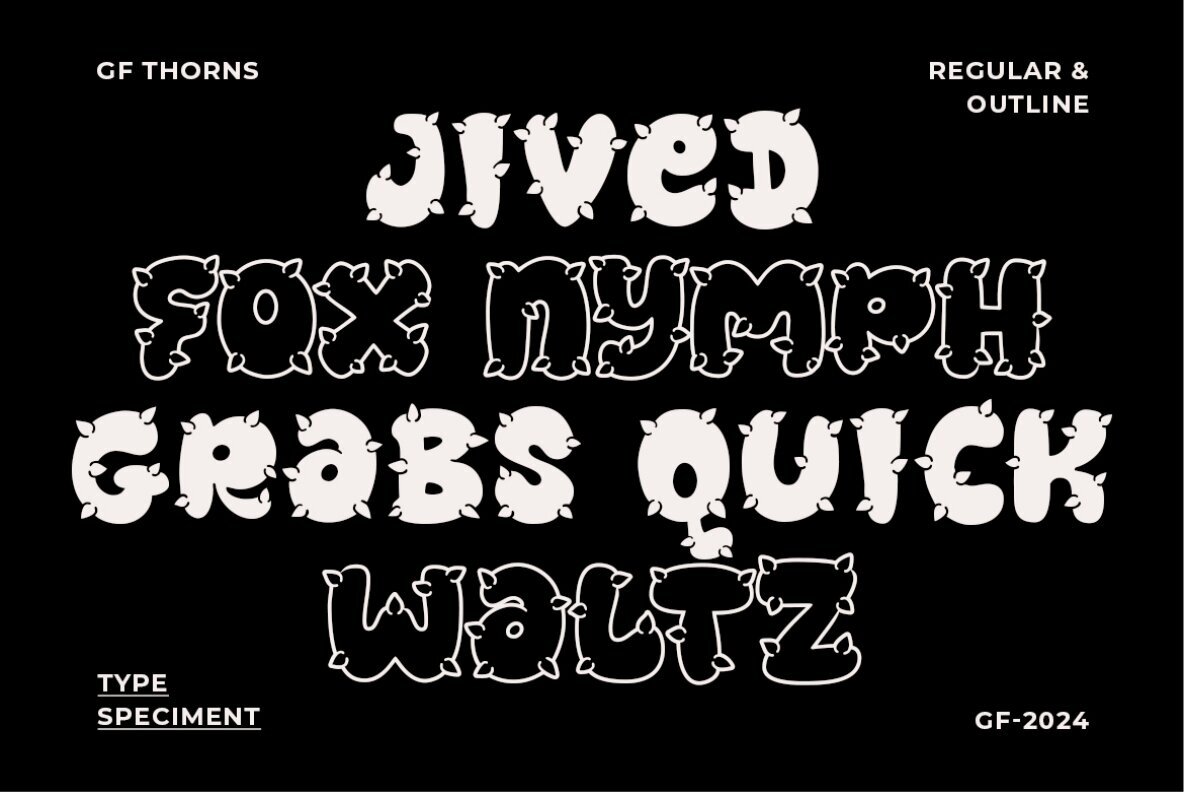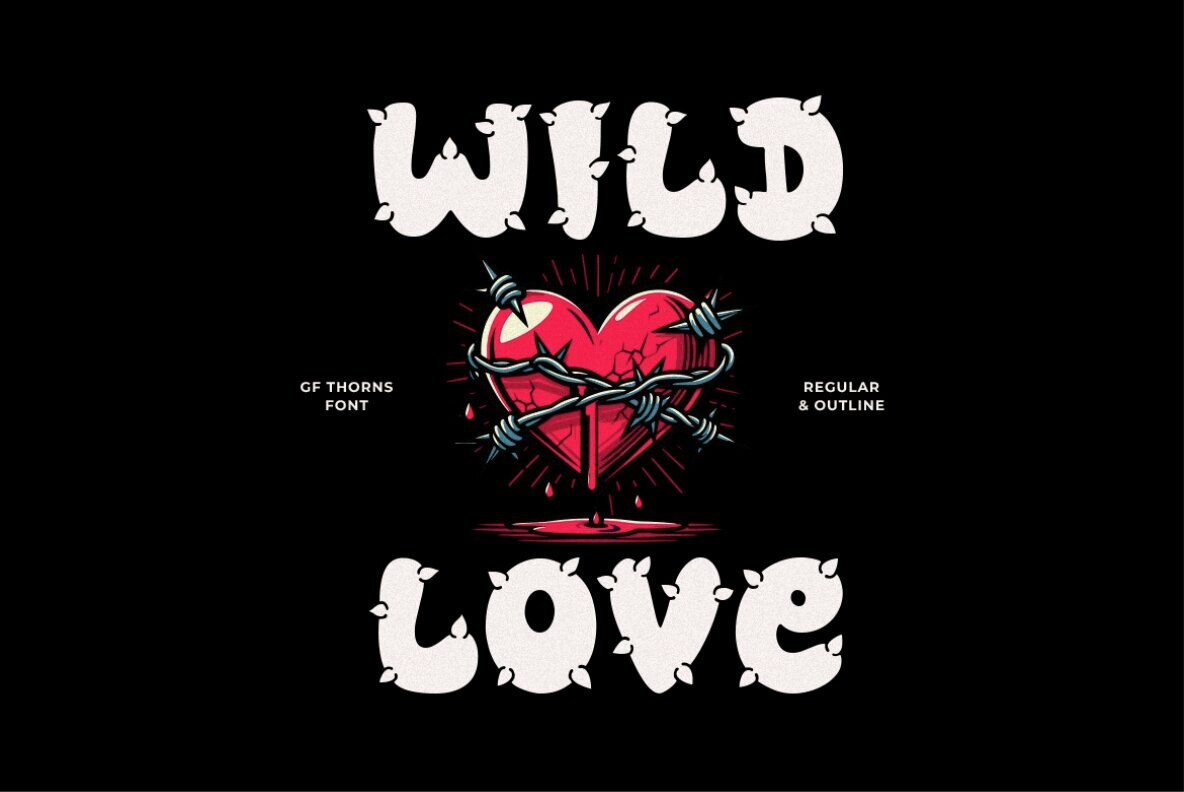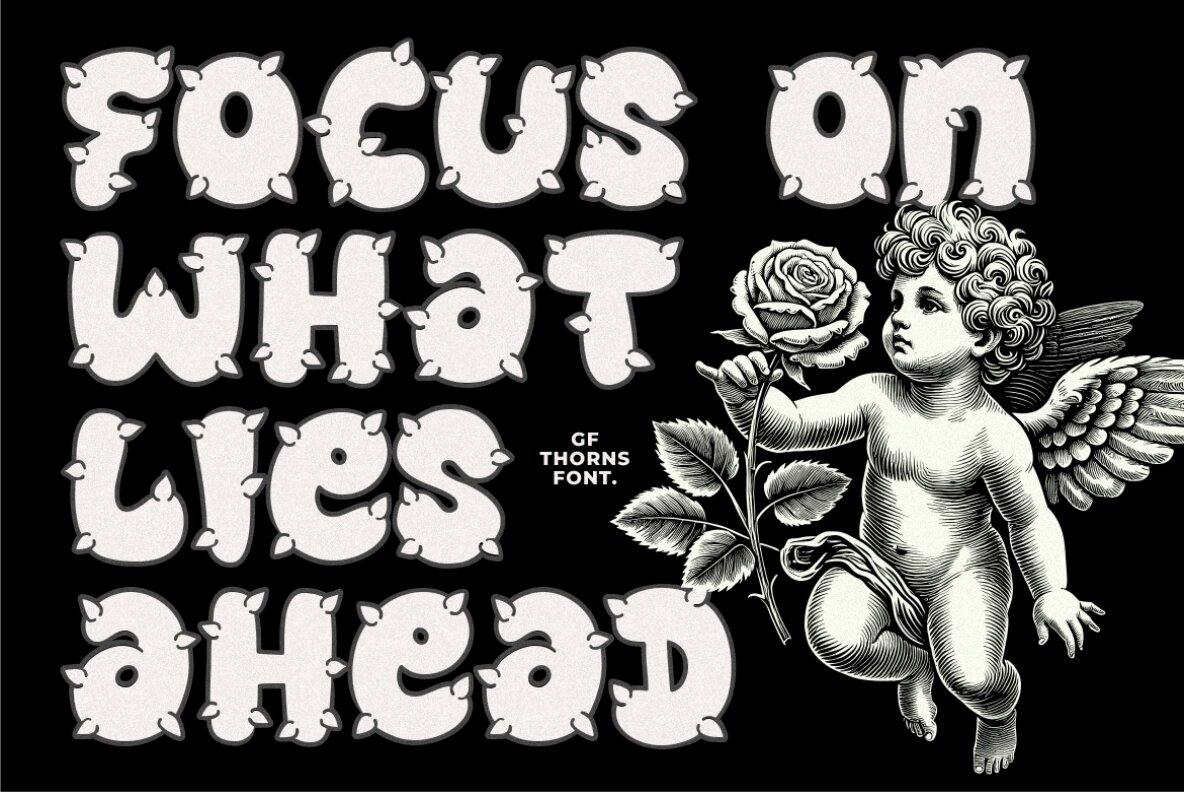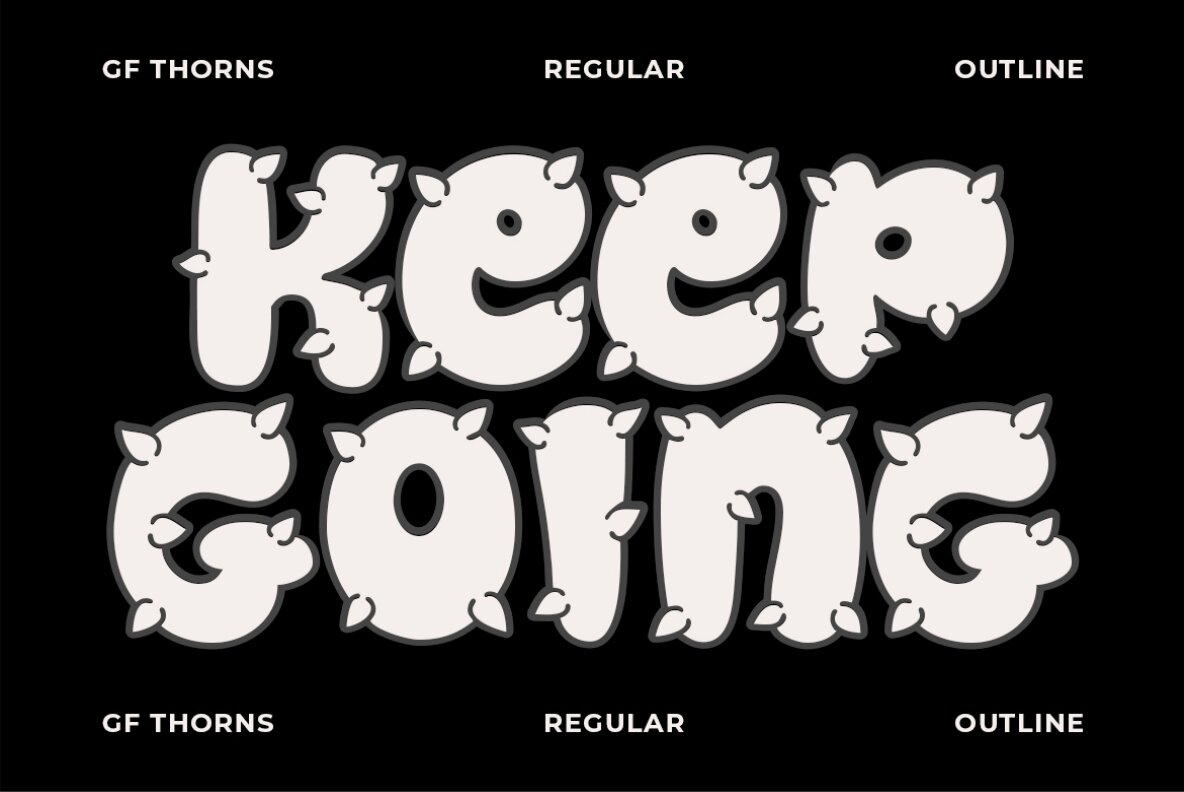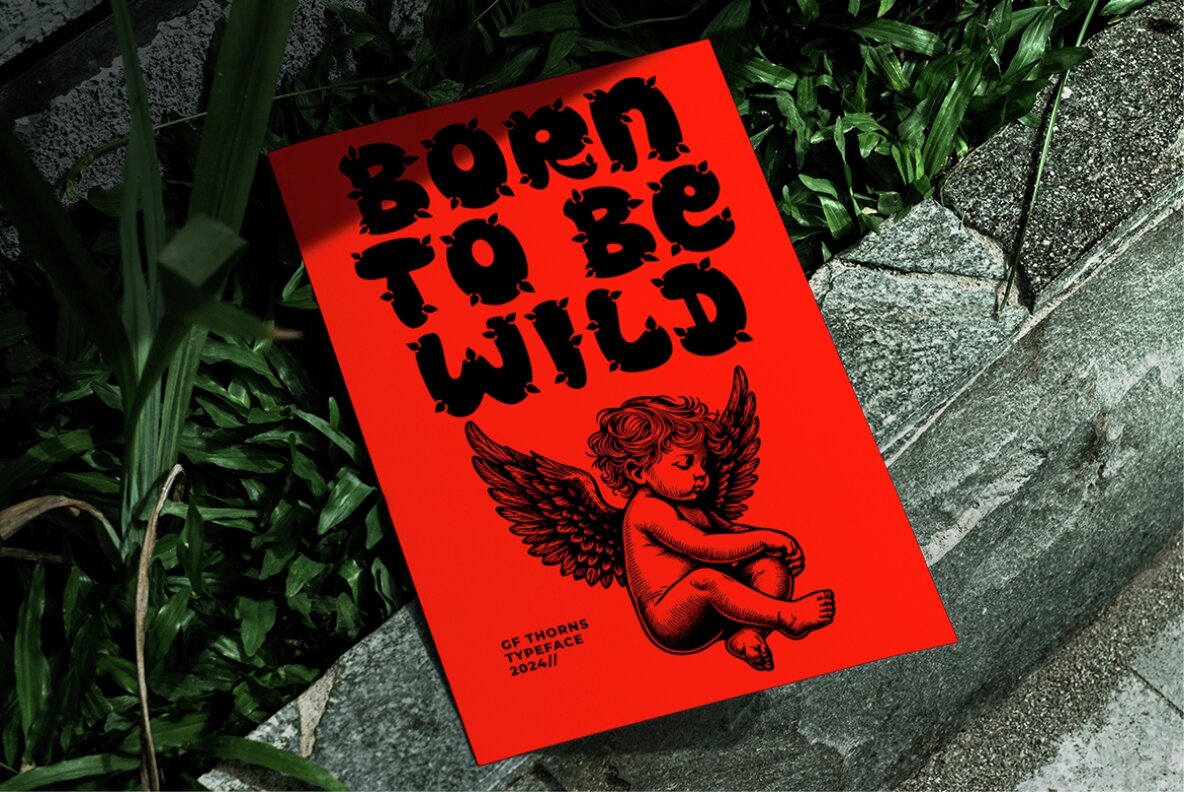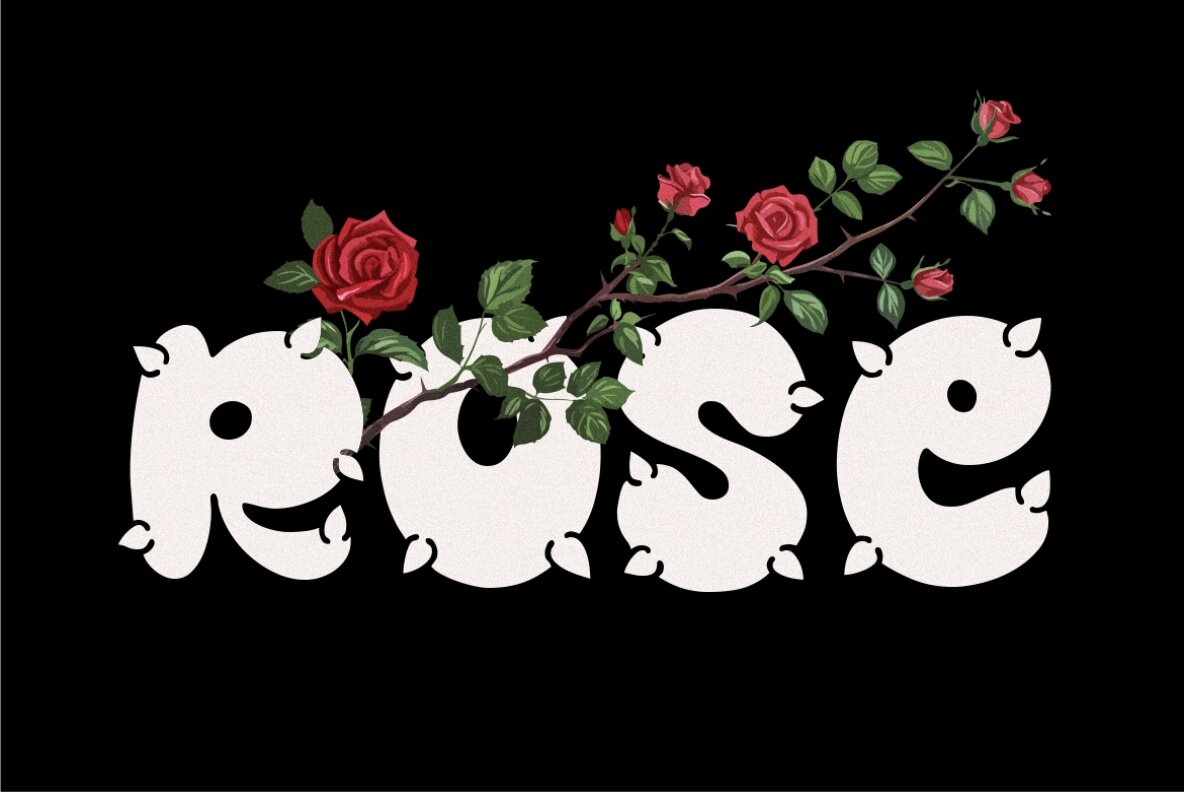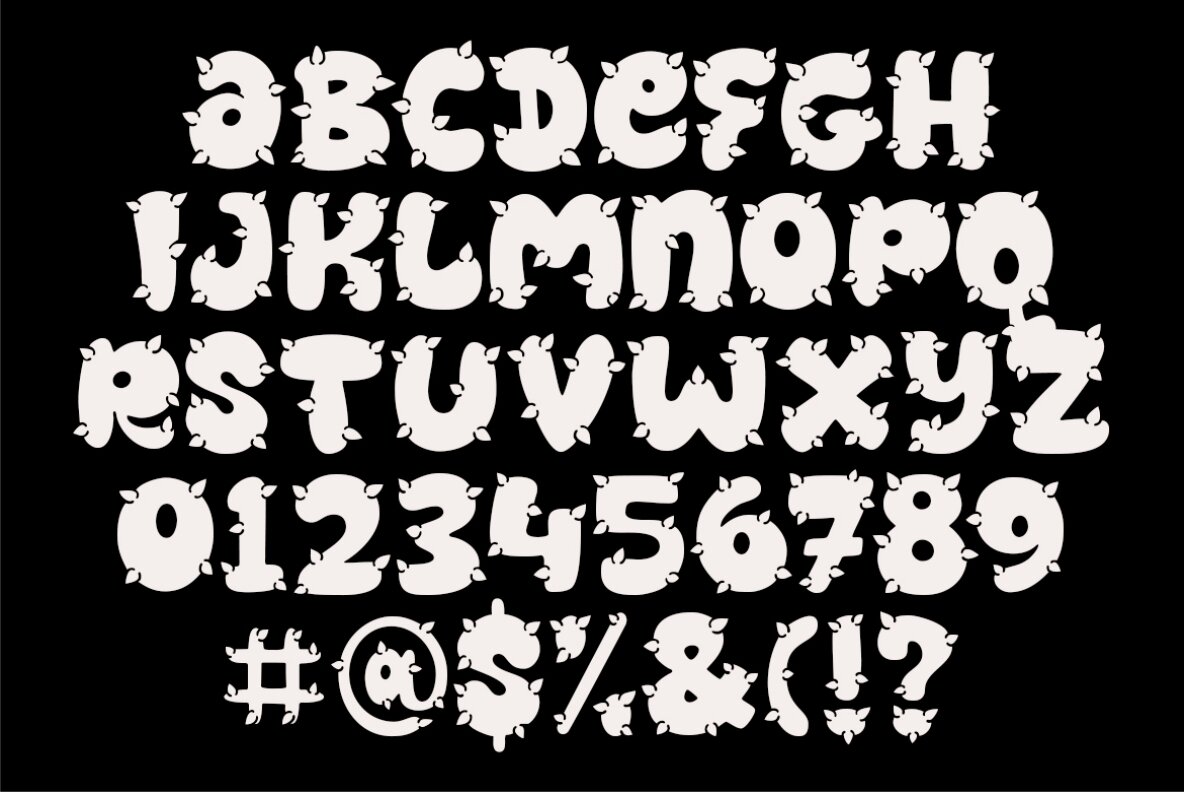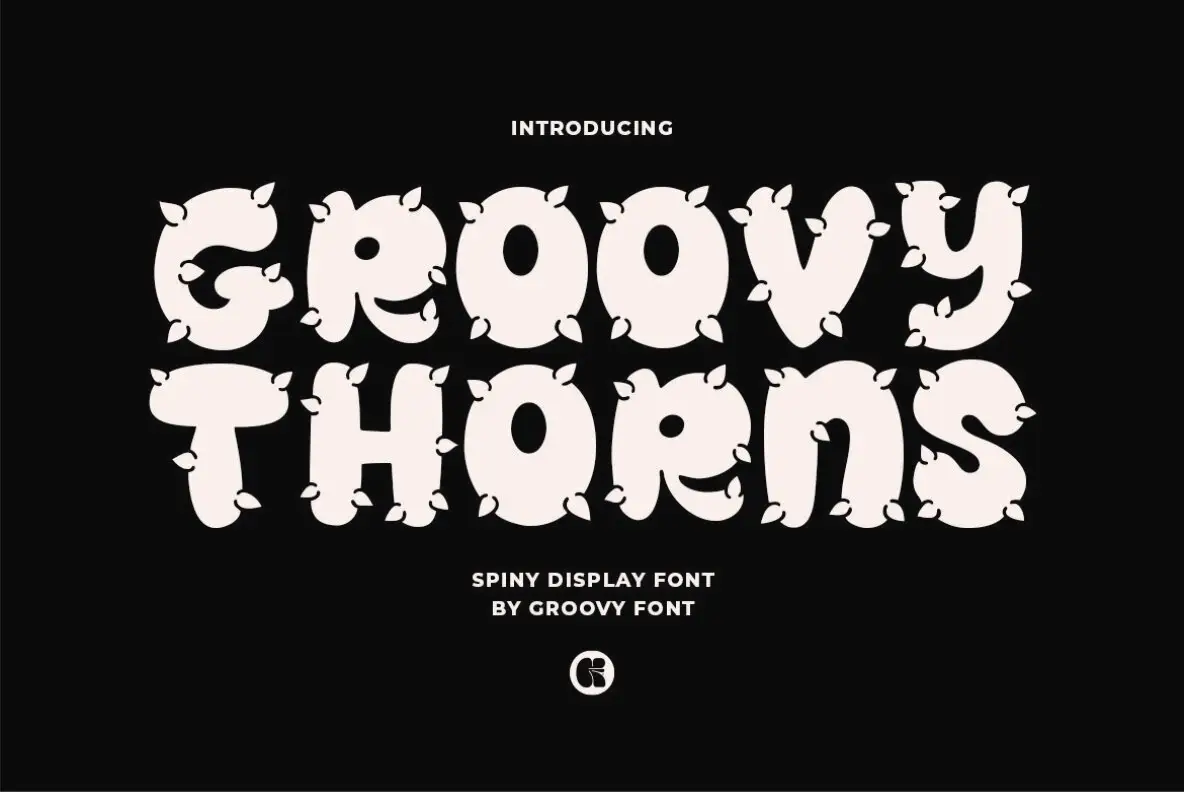
GF Thorns Font
Groovy Thorns font is an exceptional display font characterized by intricate designs inspired by the thorny branches of a rose. Its spiny and ornate details infuse sophistication and drama into any text. The font comes in two distinct styles—regular and outline—offering versatility for crafting various text effects and layouts.
Ideal for projects that demand a bold, distinctive appearance with a touch of decorative elegance, Groovy Thorns includes a full set of uppercase and lowercase letters, numerals, punctuation, and supports multilingual characters. Perfect for designers looking to add unique flair to their projects.